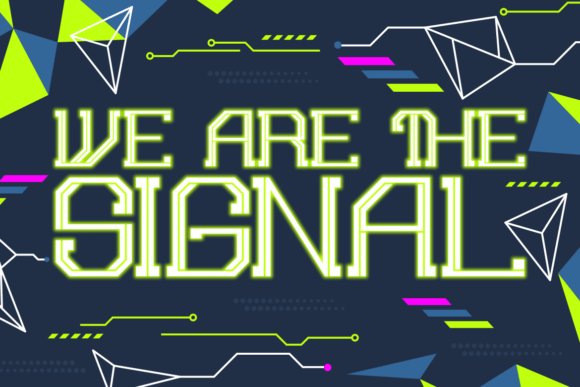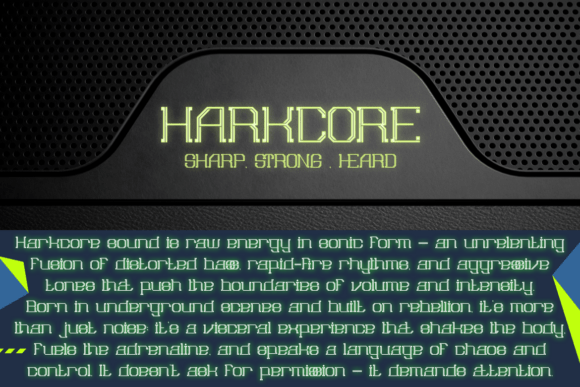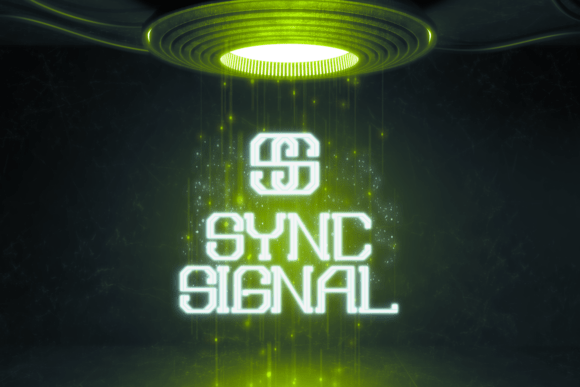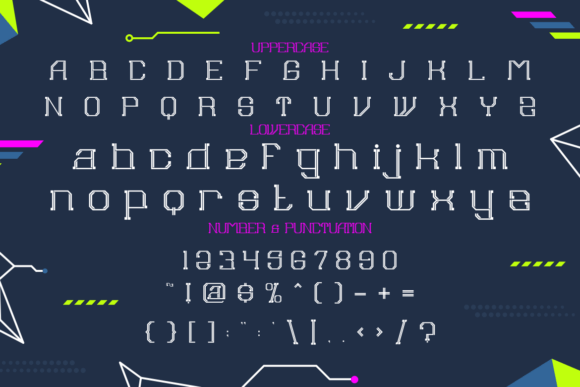
Unleash the Pulse of the Future with Astro Techno Font
In the rapidly evolving digital landscape, visual communication has become more crucial than ever. The right typography can elevate your brand, make your message stand out, and transport your audience to new dimensions. Introducing Astro Techno, a high-impact display font engineered for the digital age. Inspired by sci-fi aesthetics, electronic circuits, and retro-futuristic vibes, Astro Techno delivers a bold and angular character design that blends geometric precision with cybernetic flair.
Design and Features
Each letterform in Astro Techno is meticulously crafted with segmented strokes and layered contours, creating a sense of motion and rhythm. The unique techno-inspired styling is amplified by neon color palettes and digital signal motifs, perfect for delivering messages that demand attention. The font’s design ensures that every character, from uppercase to lowercase, is meticulously aligned to maintain structural harmony. This attention to detail extends to alternate forms and stylized punctuation, enhancing typographic versatility and creative freedom.
Perfect for Futuristic Projects
Whether you’re a designer, a craftsperson, or a digital entrepreneur, Astro Techno is the ultimate visual asset for projects that require a futuristic edge. This font is ideal for:
- Music Festival Posters: Capture the essence of electronic music festivals with bold, eye-catching titles that pulse with energy.
- Gaming Interfaces: Elevate your game’s UI with a font that screams futuristic sophistication and high-tech prowess.
- Tech Startups: Launch your brand into the stratosphere with a font that embodies innovation and forward-thinking.
- Digital Product Launches: Make your product stand out in a crowded digital marketplace with typography that’s both modern and mesmerizing.
- Album Covers: Give your music a cyberpunk makeover with album covers that feature bold, angular typography.
- Cyberpunk Movie Titles: Transport your audience to dystopian futures with movie titles that capture the essence of sci-fi.
Why Choose Astro Techno?
Choosing Astro Techno for your project offers several advantages:
- Unique Aesthetic: Stand out with a font that combines geometric precision, cybernetic flair, and a retro-futuristic vibe.
- High Versatility: Use Astro Techno across various platforms, from digital interfaces to print materials, thanks to its clear and impactful design.
- Attention-Grabbing: Ensure your message doesn’t get lost in the noise with a font designed to capture attention and ignite imagination.
- Customization: With alternate forms and stylized punctuation, you have the flexibility to tailor your typography to fit your project’s unique needs.
Tips for Using Astro Techno
To maximize the impact of Astro Techno, consider the following tips:
- Pair with Contrasts: Combine Astro Techno with simpler fonts to create visual contrast and hierarchy.
- Experiment with Colors: Take full advantage of the font’s techno-inspired design by experimenting with neon colors and digital gradients.
- Consider Context: Ensure that the font’s futuristic vibe aligns with your project’s overall theme and message.
Astro Techno is more than just a font – it’s a visual statement that propels your brand, project, or message into the future. With its unique blend of geometric precision, cybernetic flair, and techno-inspired styling, Astro Techno is poised to become the go-to choice for designers and creatives seeking to make an impact. Unleash the pulse of the future and elevate your typography with Astro Techno.